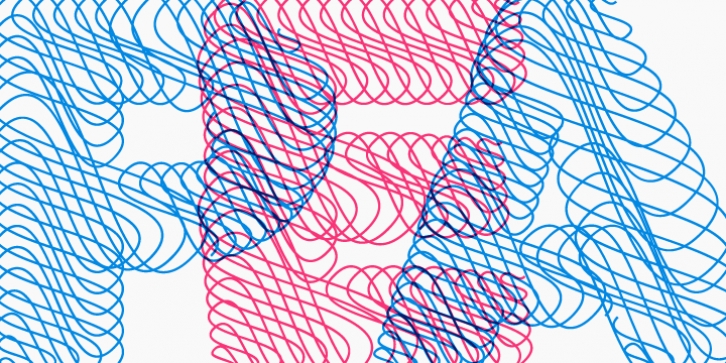
Taking an almost banal, ubiquitous letter shape - the geometric sans-serif - Pea gleefully plays with contradictions by rendering it using elaborate calligraphic swashes. Both worlds are given equal prominence, the overly ornate special occasion and the everyday.